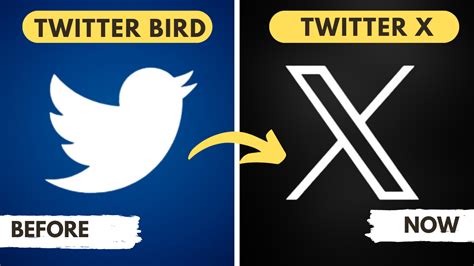
New Twitter Logo: Font Awesome And Alternatives
Hey guys! So, Twitter’s new logo has got everyone talking, right? The iconic blue bird is out, and a sleek “X” is in. If you’re a web developer or designer, you’re probably wondering how to incorporate this new logo into your projects, especially if you’re a fan of Font Awesome. Let’s dive into how you can use the new Twitter logo with Font Awesome and explore some alternatives.
Before we jump into implementation, let’s quickly recap what’s new. The new Twitter logo , now an “X,” represents a bold shift in branding. It’s minimalist, modern, and, well, different! The old logo was super recognizable and had years of brand recognition behind it, so switching to something completely different is a pretty big deal. As designers and developers, we need to adapt to these changes swiftly to keep our projects up-to-date.
The design itself is quite simple, featuring clean lines and a stark black-and-white color scheme (though it can adapt to different backgrounds). This simplicity makes it versatile for various applications, from websites to apps. The logo’s design is intended to reflect the company’s new direction and vision. It’s all about change and embracing the future , according to Elon Musk and the team behind the rebrand. Whether you love it or hate it, it’s here to stay, and we need to figure out the best way to use it.
When you’re thinking about using this in your projects, keep in mind the overall aesthetic you’re aiming for. The X logo is very modern, so it might not fit well with older, more traditional designs. Think about the color scheme too. While the default is black and white, you can play around with colors to match your brand. Just make sure it’s still recognizable as the Twitter X. Consider the size and placement as well. You want it to be visible, but not overwhelming. Finding the right balance is key to making it work seamlessly with your design.
Also, it’s worth keeping an eye on any updates or variations that Twitter might release in the future. Logos often evolve over time, and the X logo is likely to go through some tweaks and adjustments as the brand matures. Staying informed will help you keep your projects looking fresh and current. All in all, understanding the nuances of the new logo will help you integrate it effectively and thoughtfully into your work. Whether you’re updating a website, creating marketing materials, or designing an app, a solid grasp of the logo’s design and purpose is essential.
Font Awesome is a hugely popular icon library that makes it super easy to add scalable vector icons to your website. It’s a go-to for many developers because it’s simple to use and offers a massive range of icons. However, here’s the catch: Font Awesome is community-driven, and it takes time for new icons to be added and updated. As of now, you won’t find the new Twitter “X” logo directly in the standard Font Awesome library.
But don’t worry, there are still ways to make it work! One approach is to use Font Awesome’s ability to upload and use custom icons. If you have a Font Awesome Pro subscription, you can upload the new Twitter logo as an SVG file and use it just like any other icon in the library. This method gives you full control over the icon’s appearance and ensures it integrates seamlessly with your existing Font Awesome setup. You can adjust the size, color, and styling using Font Awesome’s classes, just like you would with any other icon.
If you don’t have a Pro subscription, you can still use Font Awesome by referencing the Twitter logo from an external source. This involves hosting the SVG file on your own server or using a CDN (Content Delivery Network) and then using CSS to call the icon. While this method requires a bit more setup, it’s a viable option for those who want to stick with Font Awesome without paying for the Pro version. Here’s a basic example of how you might do it:
<i class="custom-twitter-x"></i>
.custom-twitter-x {
display: inline-block;
width: 1em;
height: 1em;
background: url('path/to/twitter-x.svg') no-repeat;
background-size: contain;
}
In this example, you’re creating a custom CSS class that uses the SVG file as a background image. You can then apply this class to an <i> tag, similar to how you would use a standard Font Awesome icon. Remember to replace 'path/to/twitter-x.svg' with the actual path to your SVG file. This method allows you to use the new Twitter logo while still leveraging Font Awesome’s styling capabilities.
Another cool thing about using Font Awesome is that you can take advantage of its pseudo-elements and CSS transformations to further customize the Twitter X logo . For example, you could add a hover effect that changes the color or adds a subtle animation. The possibilities are endless , and it’s all about getting creative with CSS. Just make sure to test your implementation across different browsers and devices to ensure it looks good everywhere.
Alternatives to Font Awesome